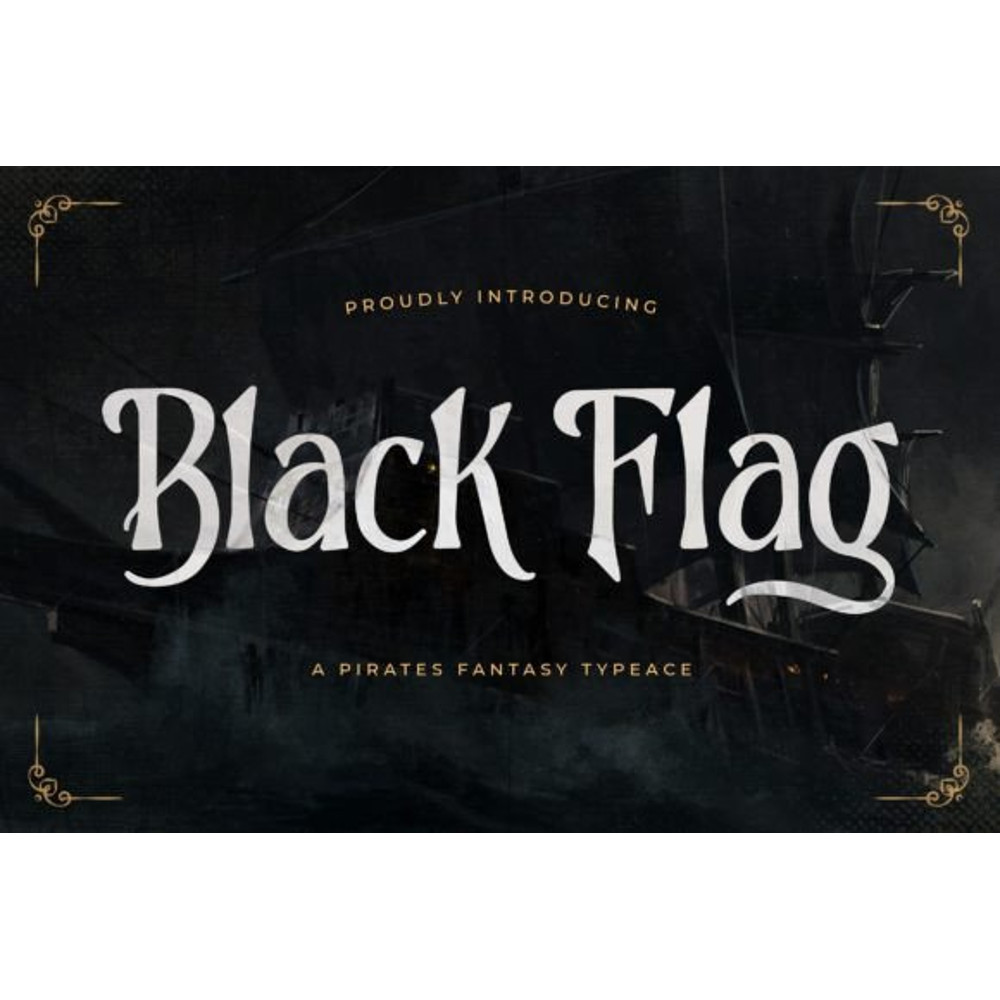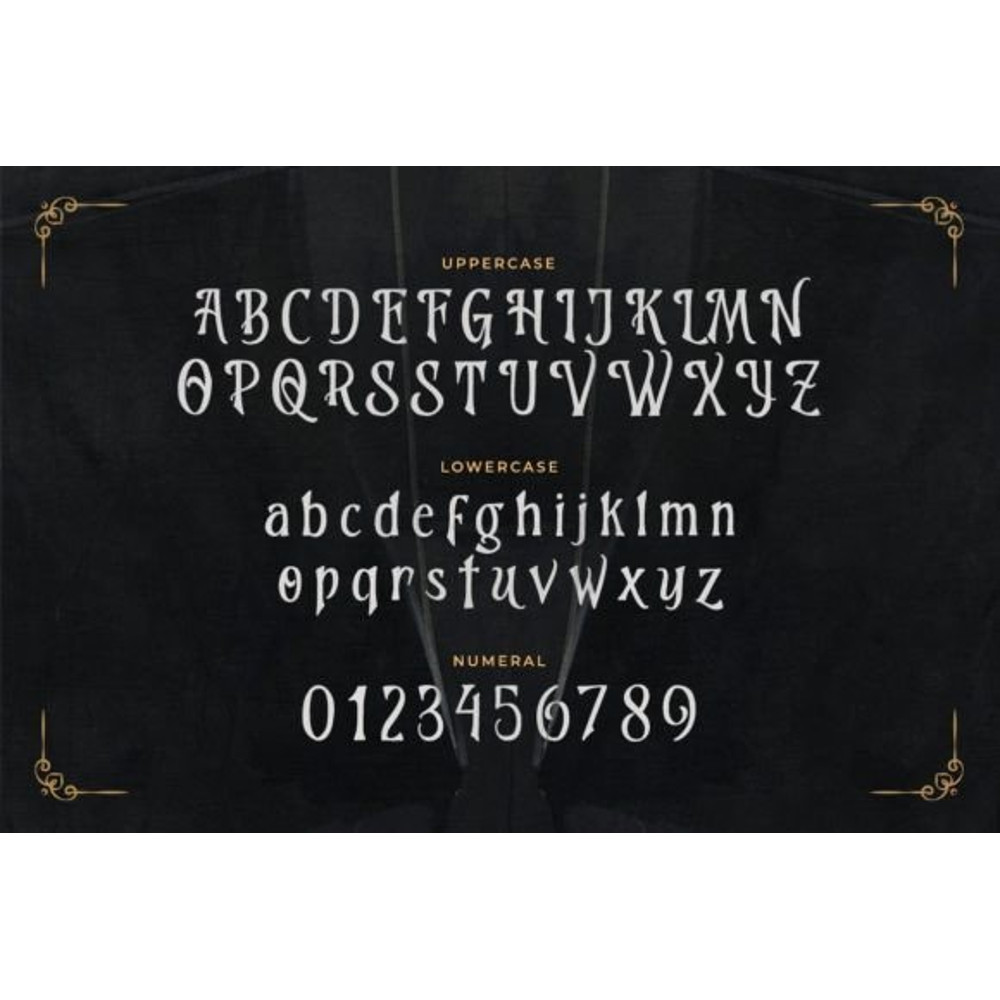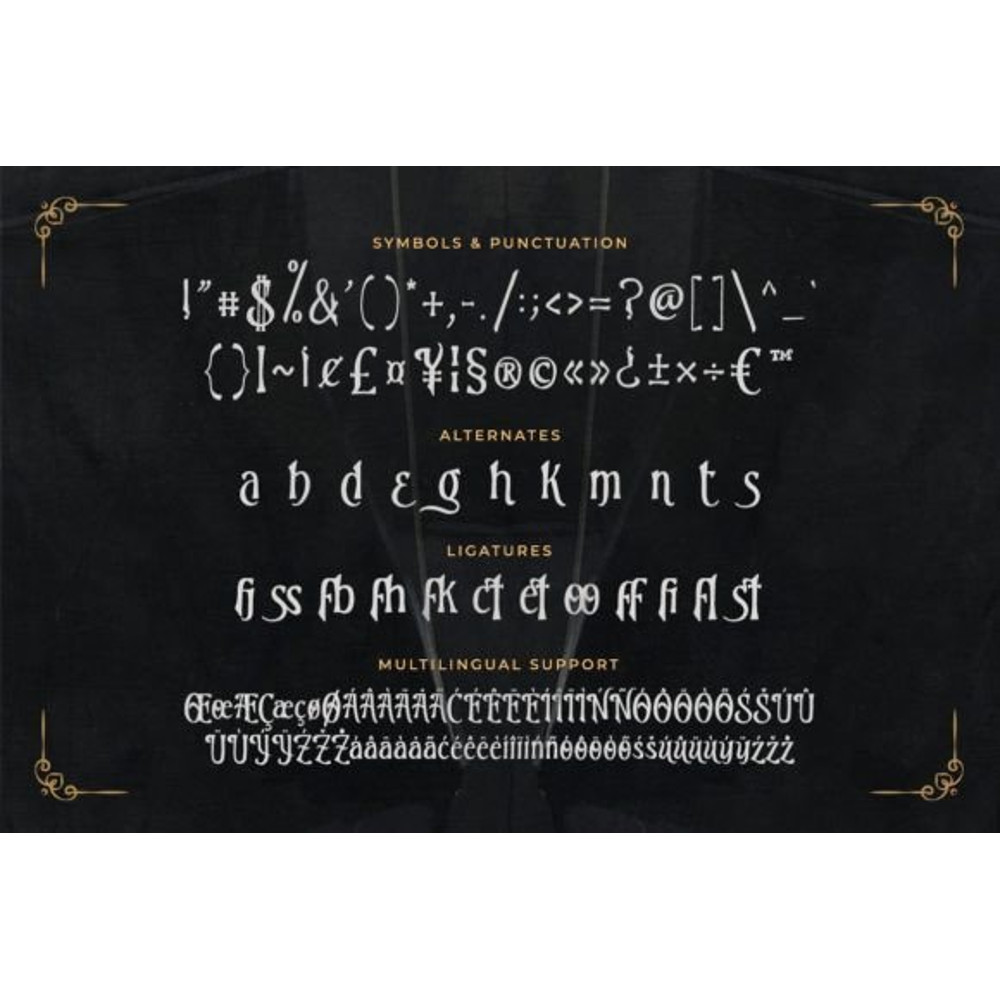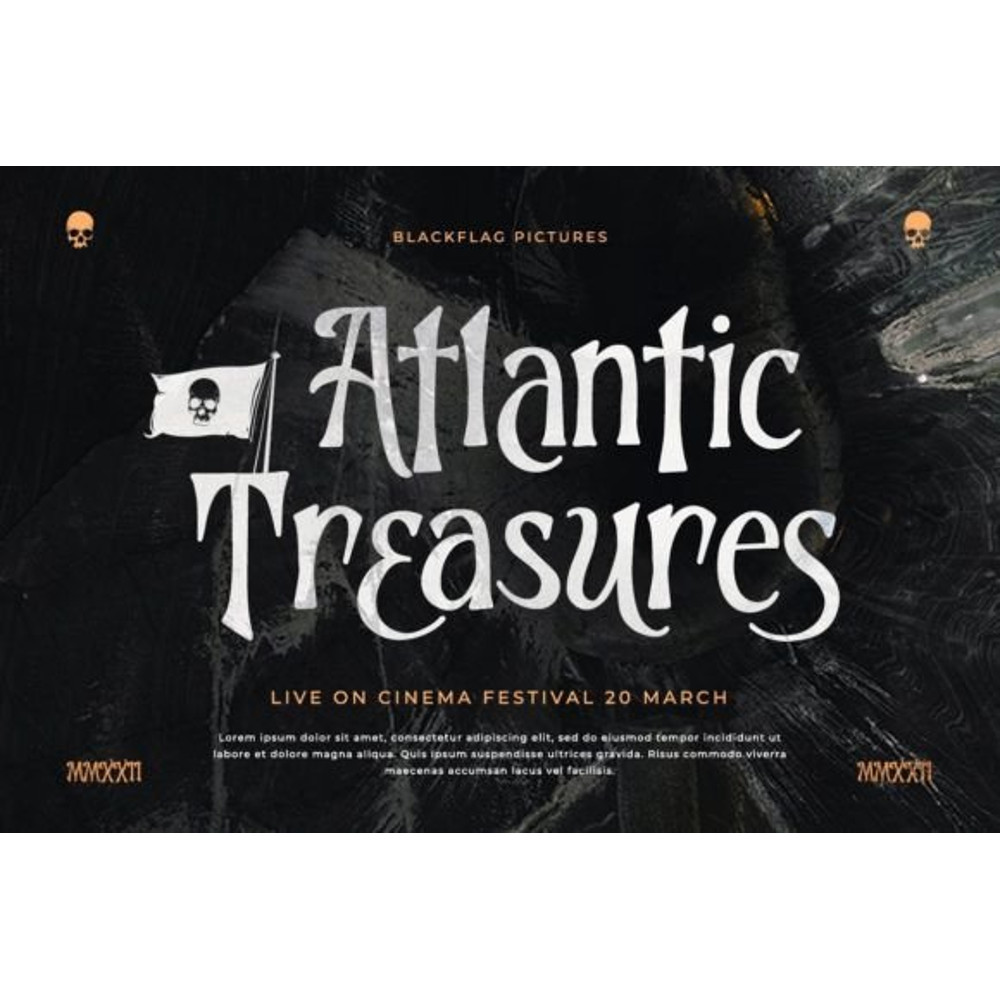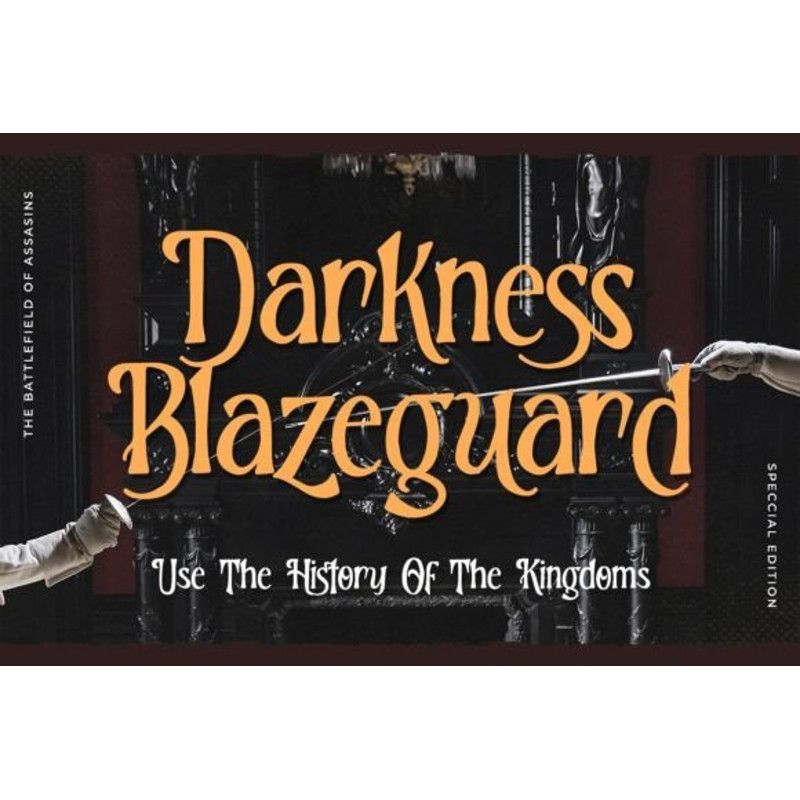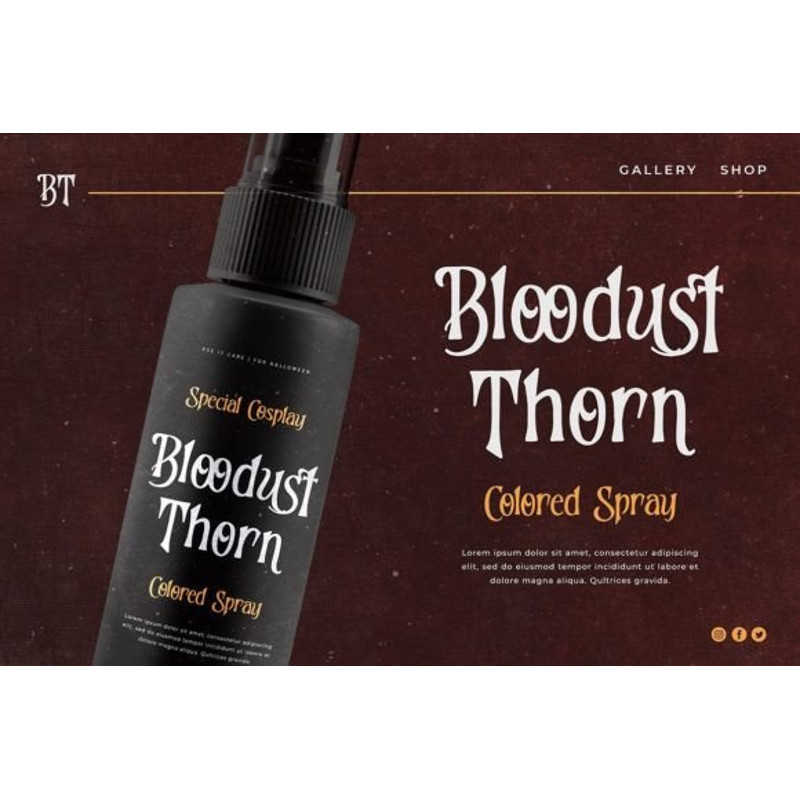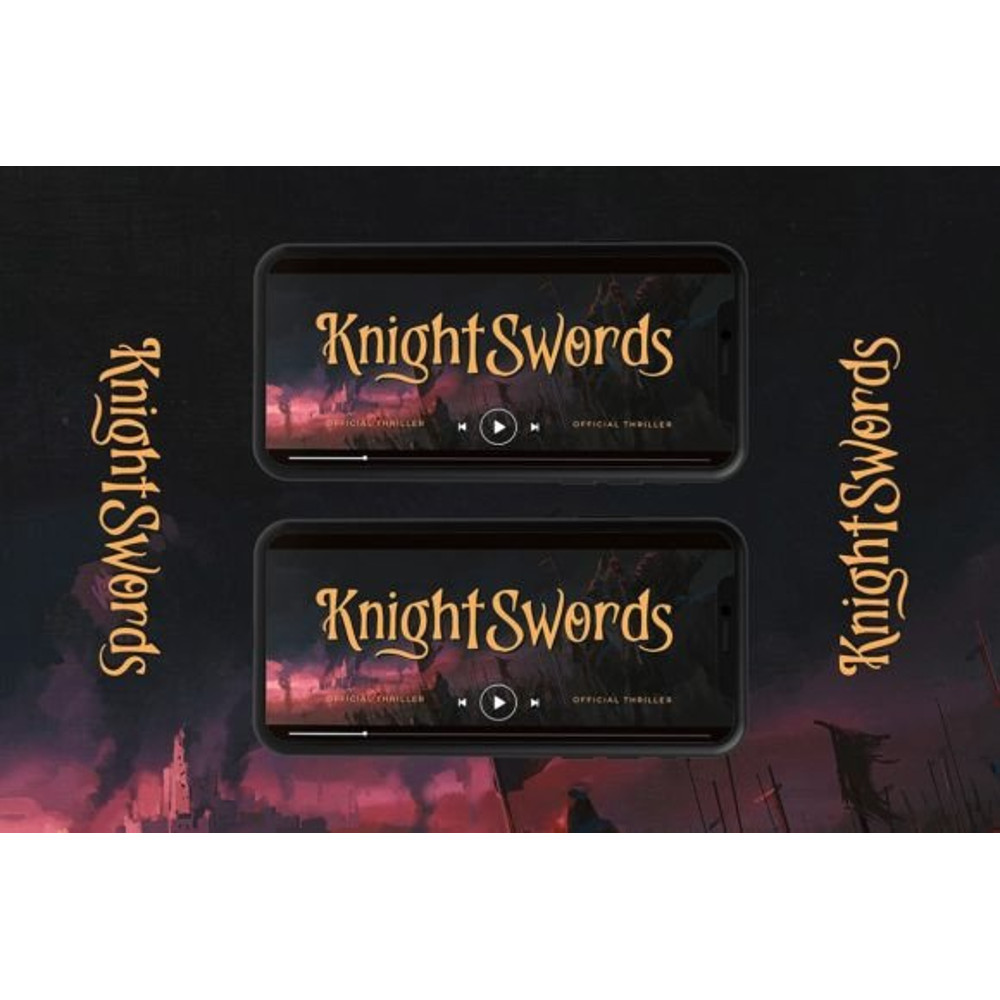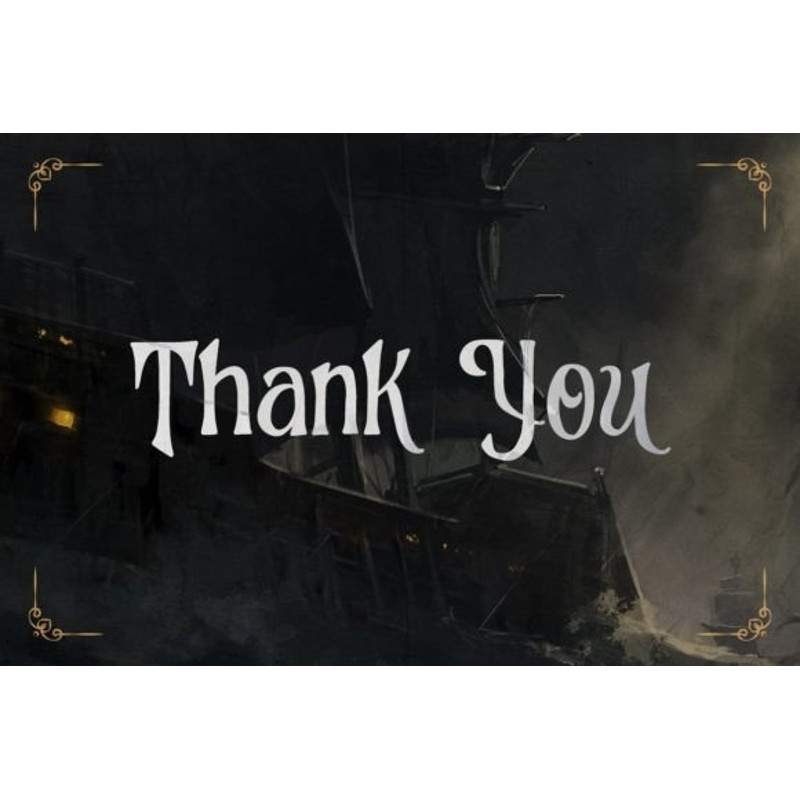
Black Flag Font
Black Flag is a pirate fantasy font that will immediately take you into an adventure vibe.
This font will be the ideal choice for any movie, game, or pirate-themed design you wish to develop.